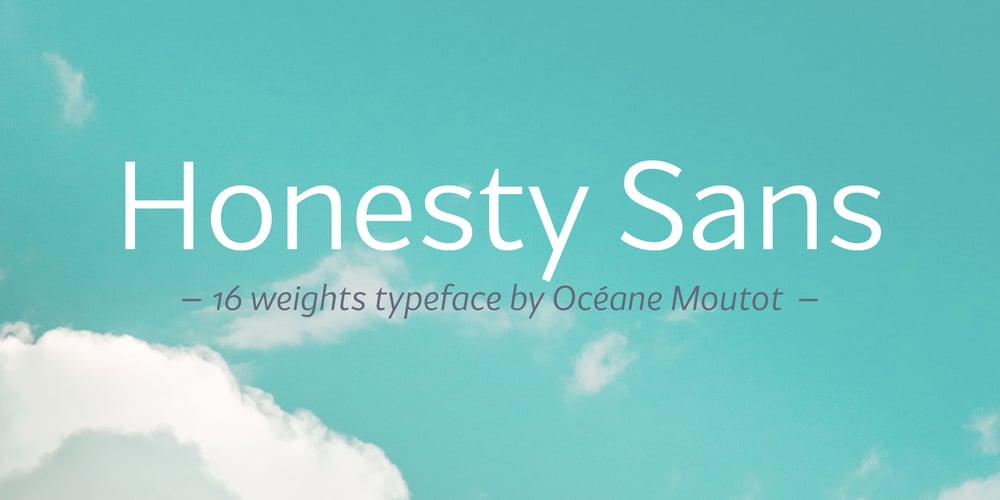
Honesty Sans
Honesty Sans font
Honesty Sans Font Family was designed by Océane Moutot and published by Océane Moutot. Honesty Sans contains 16 styles and family package options. Honesty was the first font published by the Studio in 2020. It was a typeface with flared stems. 2 years later, we are now publishing Honesty Sans. It is inspired by the original design but is revisited as a sans serif this time. Honesty Sans keeps the inspiration from the incise genre and font such as Albertus or the Trajan but with softness, thanks to its low contrast and smooth curves. Honesty Sans is highly lisible, which offers a variety for use, from titles, edition of texts, branding, magazines and so on. Its large variety of glyphs, including accents, old-style numbers and ligatures will give uniqueness to your designs.Honesty Sans is available in 16 styles, from thin to heavy in roman and italic.